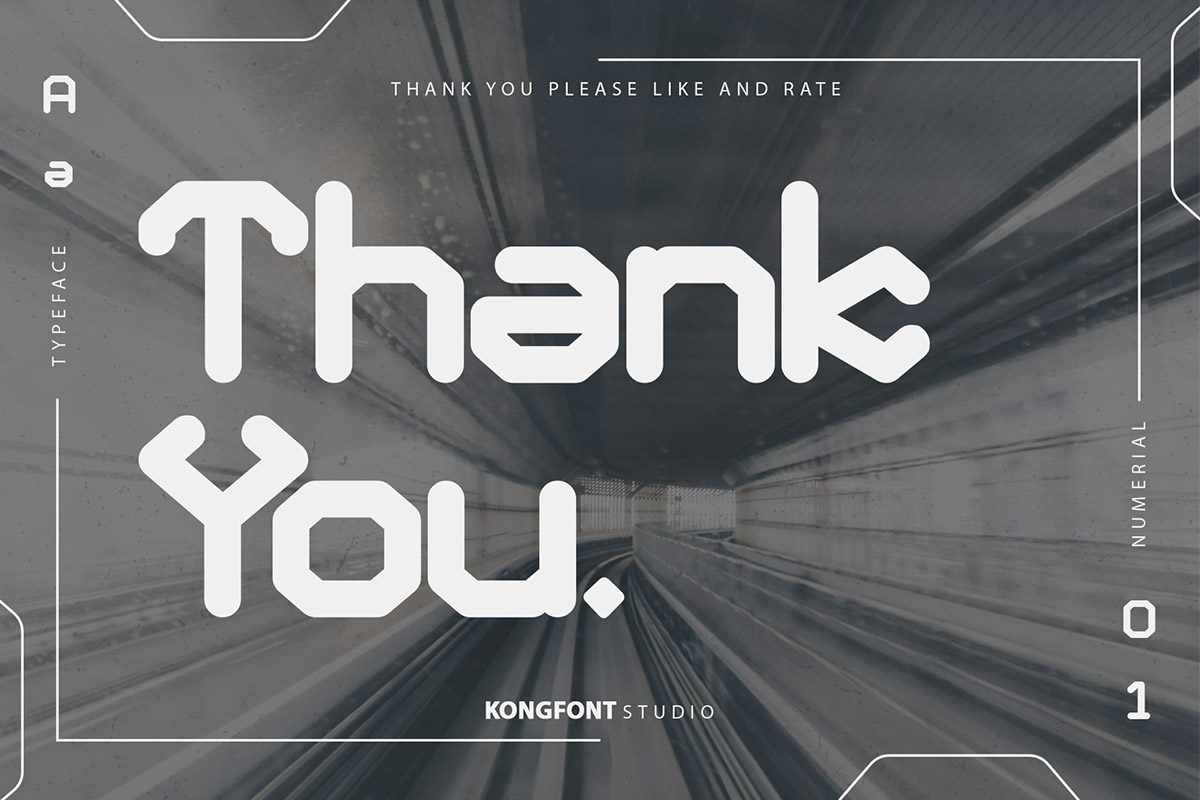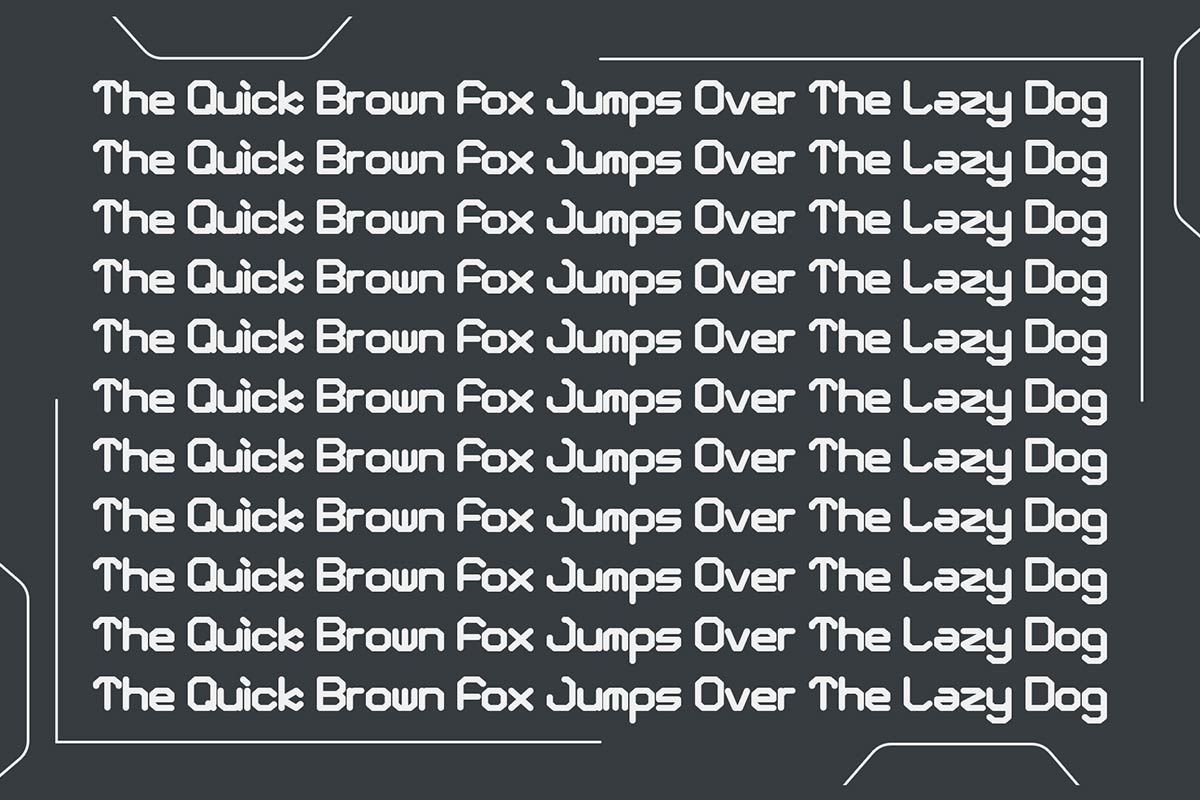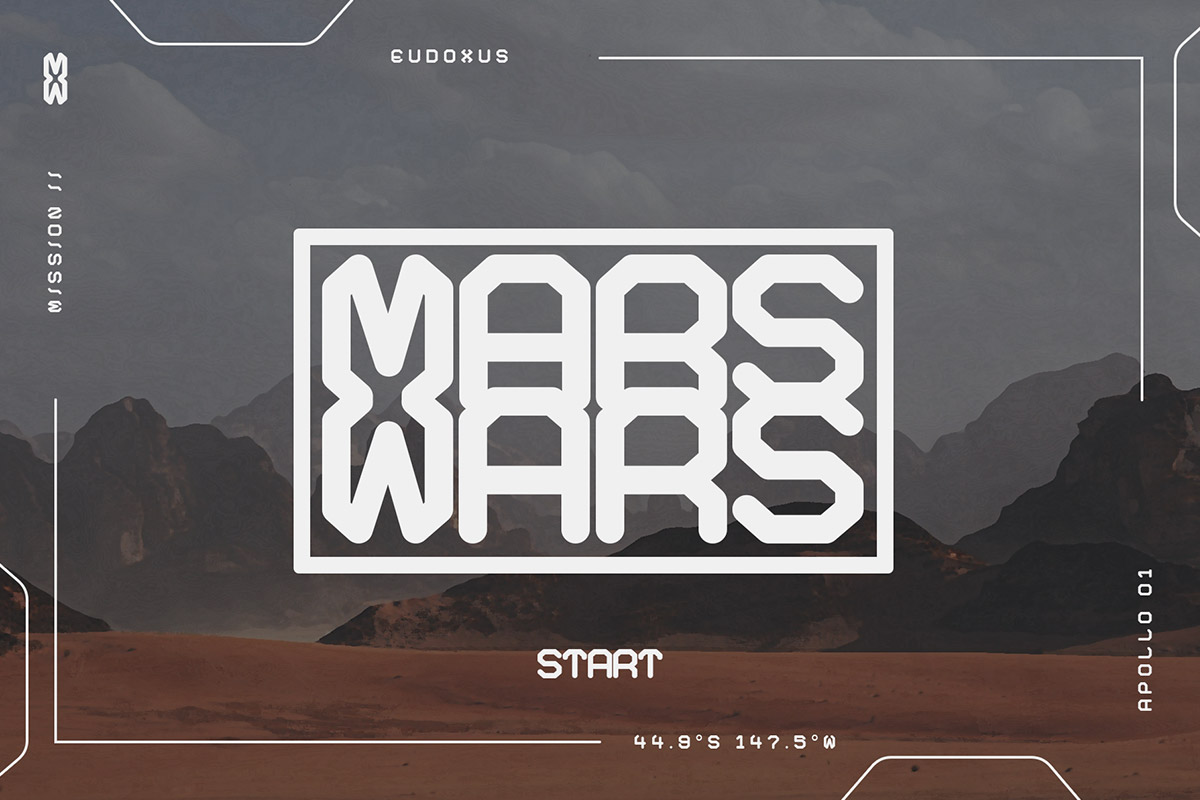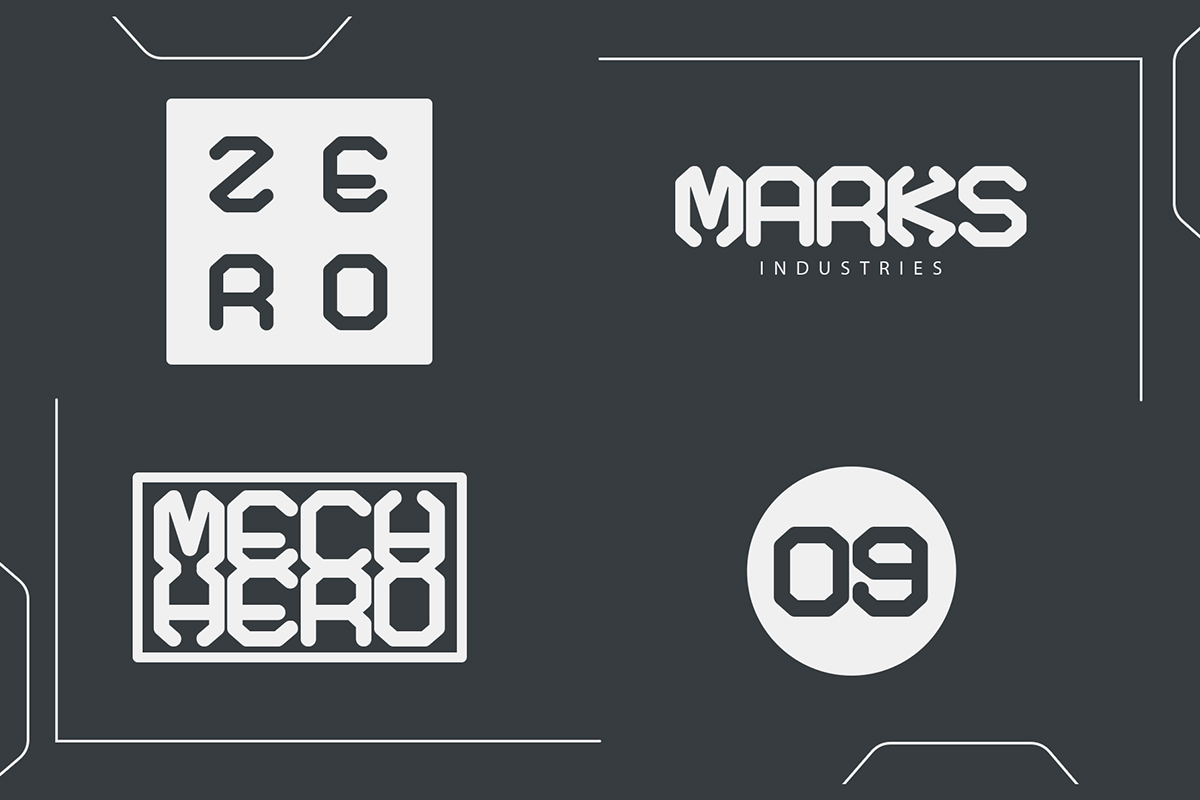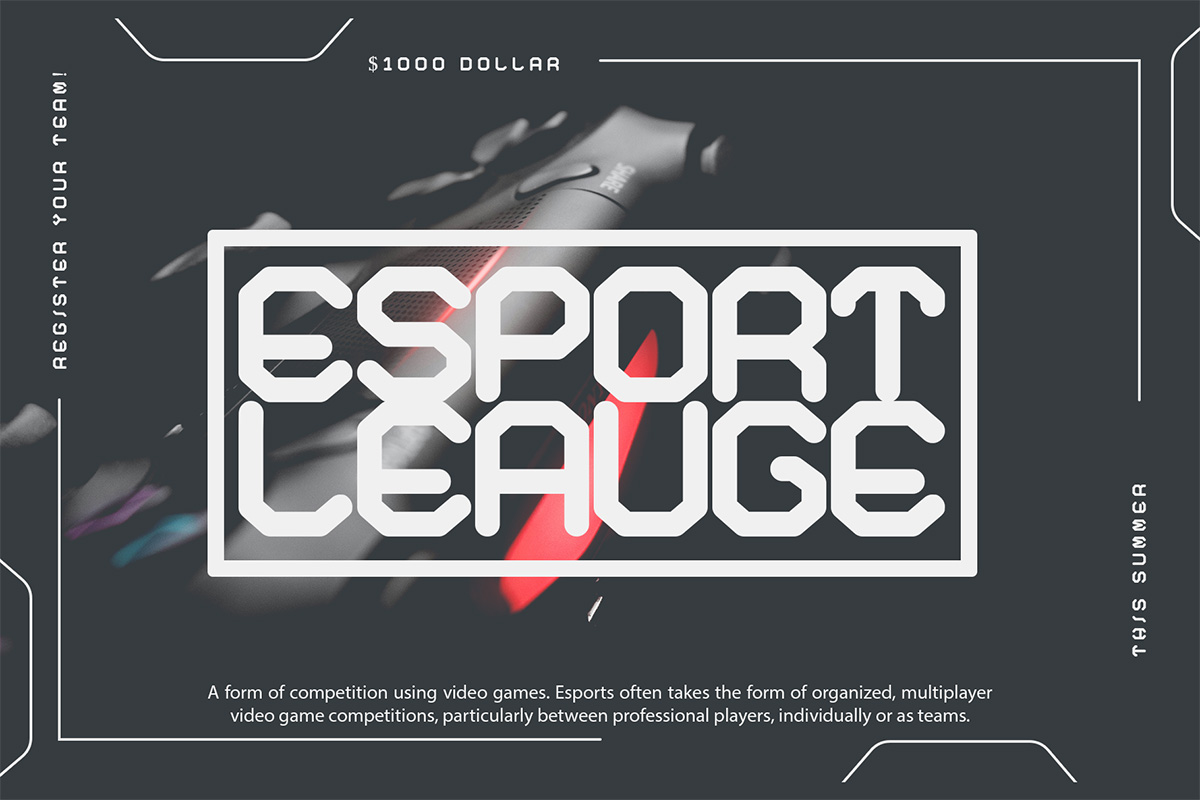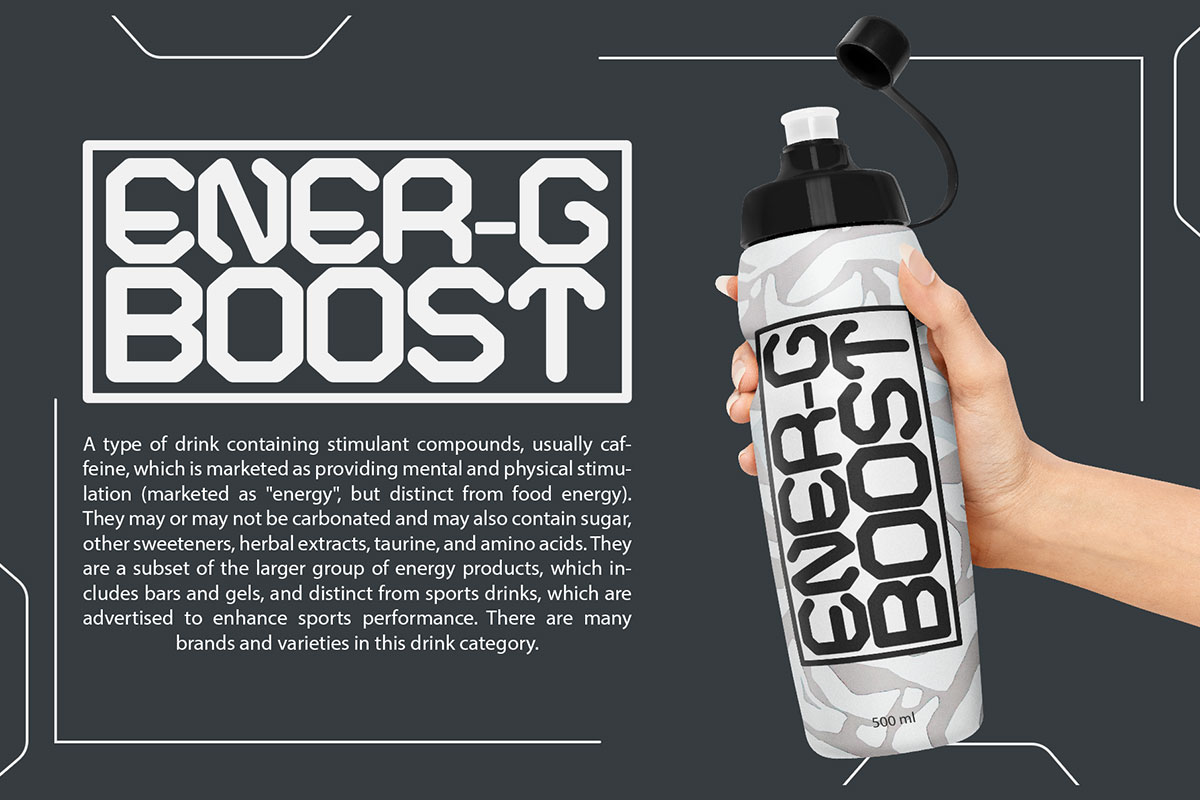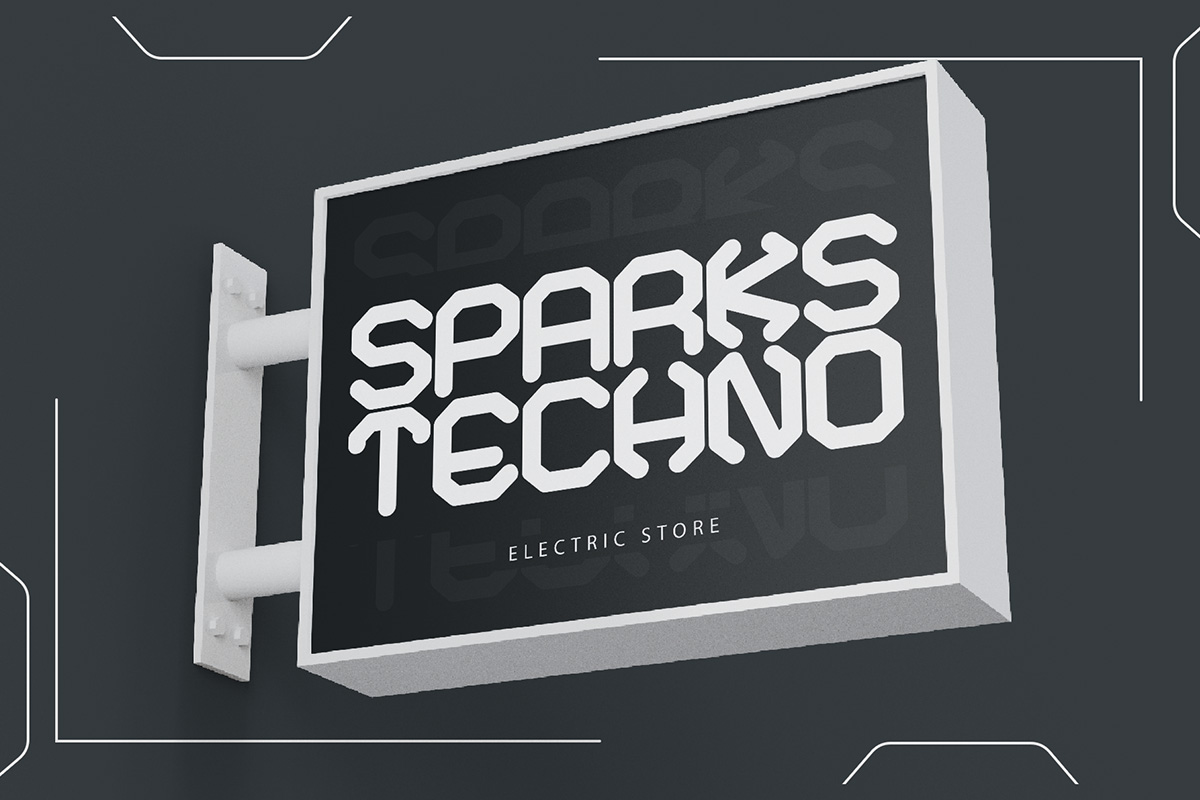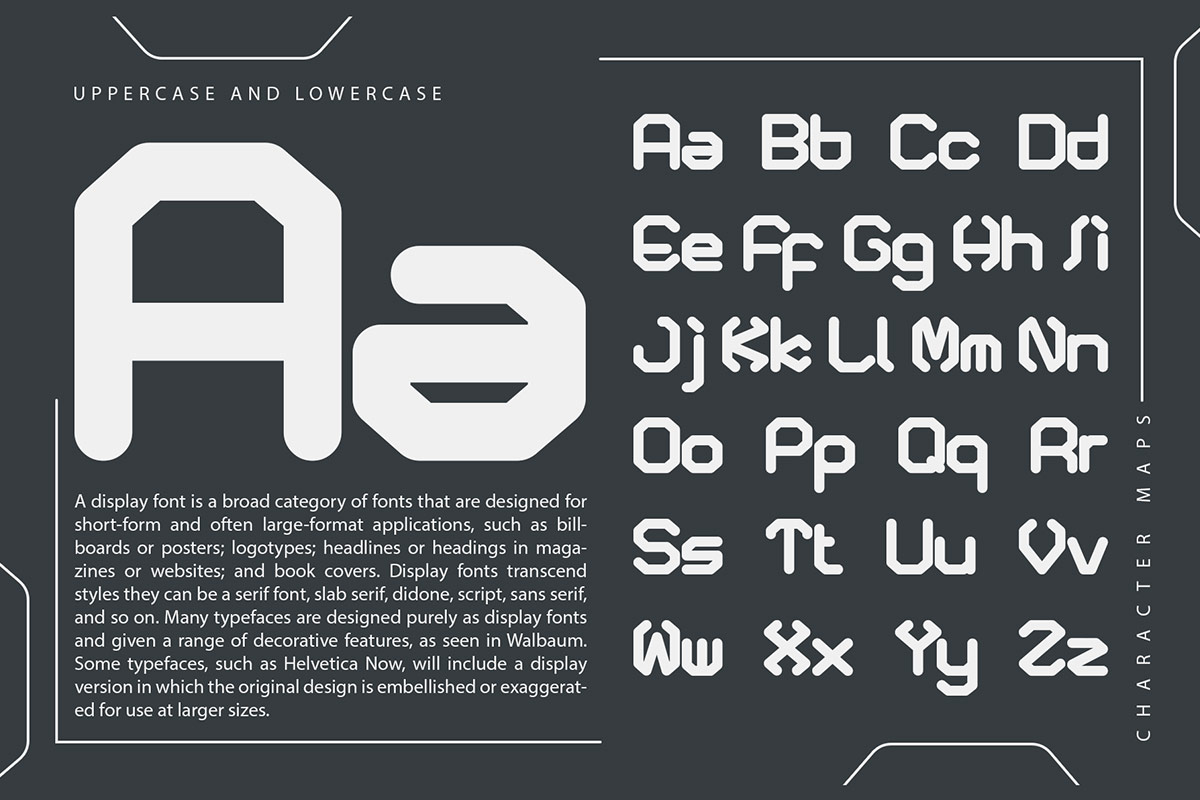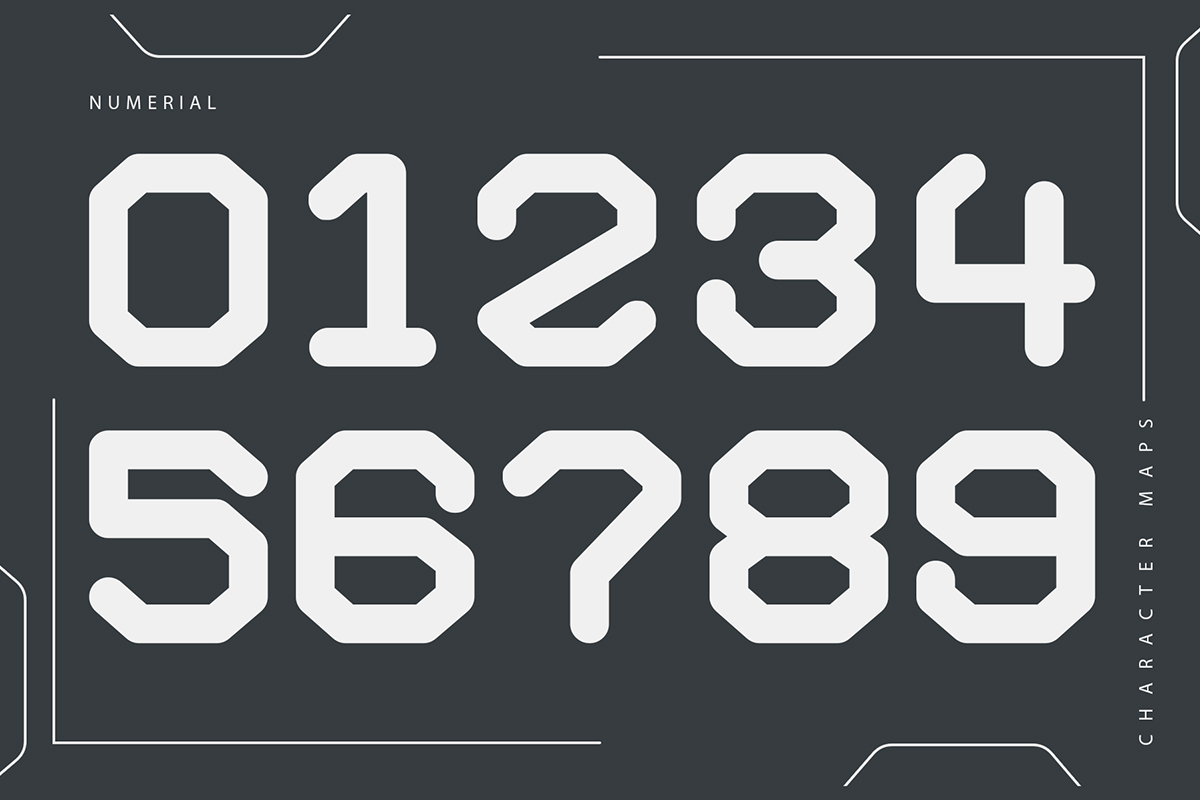
Mechane Font Font Kong always tries to provide the best variety of font choices that can color your day. Mechane Modern Futuristic font is one of the many fonts created with its uniqueness. Mechane Modern Futuristic font has a legible form. It can be seen from the shape of the font upright, clean, and with no additions in any part of the body. Apart from that, the simple but charismatic intersection of letters makes it one of the characteristics of the appearance of the Mechane Modern Futuristic font. If we pay close attention to the features described earlier, of course, Mechane Modern Futuristic font is the best font to use in the initial appearance of a web or poster. And What's no less interesting, this font can be applied digitally or printed. Mechane Modern Futuristic font in digital font form can be applied to the web which contains about automotive, outer space, and various other modern discussions. Of course, this application must be equipped with the appropriate theme, color, and ornament. Products that use Mechane Modern Futuristic font as a compliment, of course, also have their uniqueness and display their impression. The charismatic vibes are very attached to this font. With these various explanations, Mechane Modern Futuristic font has an important role in shaping the branding of a product. When printed, it is perfect for a poster, banner, and magazine cover. Our Display font collection is compatible to use as Figma fonts, Canva fonts, Freepik Fonts, and Adobe Fonts. They also work as Windows Fonts and Apple Fonts. For your social media needs, you can use and install fonts in our collection of display and decorative typography to use as Instagram Fonts, Facebook Fonts, and Twitter Fonts.